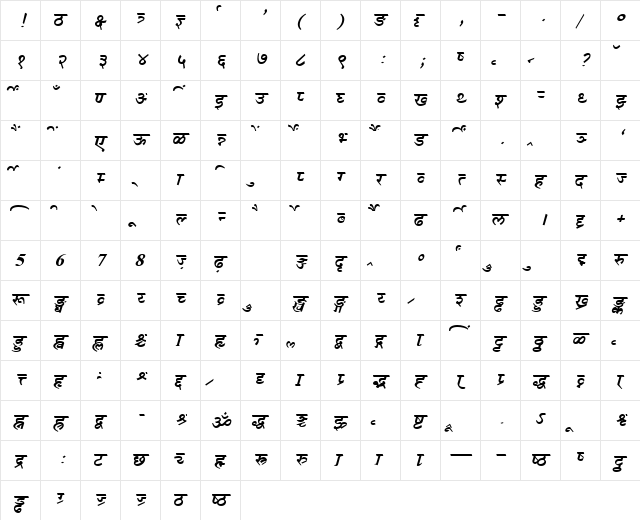
AkrutiDevBharati BoldItalic Font Preview
Design Context for AkrutiDevBharati Typeface
AkrutiDevBharati offers clean, dependable letterforms without strong stylistic allegiance, making it a practical choice for designers who need flexibility. The dynamic lean of this cut emphasises speed and emphasis in any layout. The heavy weight commands attention and anchors typographic hierarchies.
Pro Tip: Try AkrutiDevBharati for annotation and caption copy alongside an upright companion — the contrast in angle creates a dynamic but ordered typographic system.